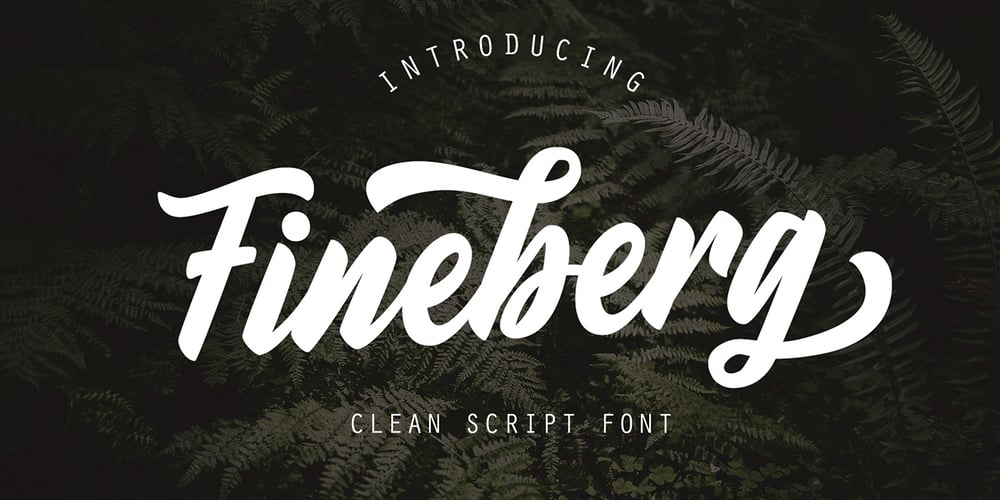
Fineberg
Fineberg font
Fineberg Font Family was designed by Arjianto Farul and published by Typefar. Fineberg contains 1 styles and family package options. Fineberg is a script font that is very suitable for branding projects, home appliances design, product packaging, design on t-shirts, calendar design, logo design and more!